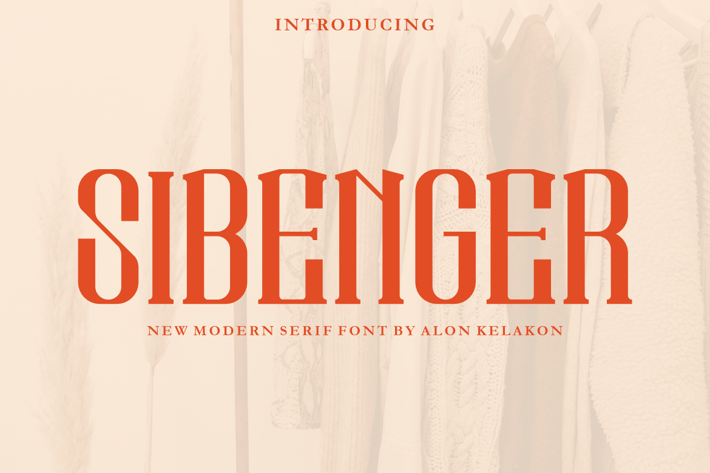
Sibenger Font
Sibenger Font is unique . Ready to use for your design like labeling, clothing, movie sceen, poster, movie title, gigs, album covers, logos, and much more.